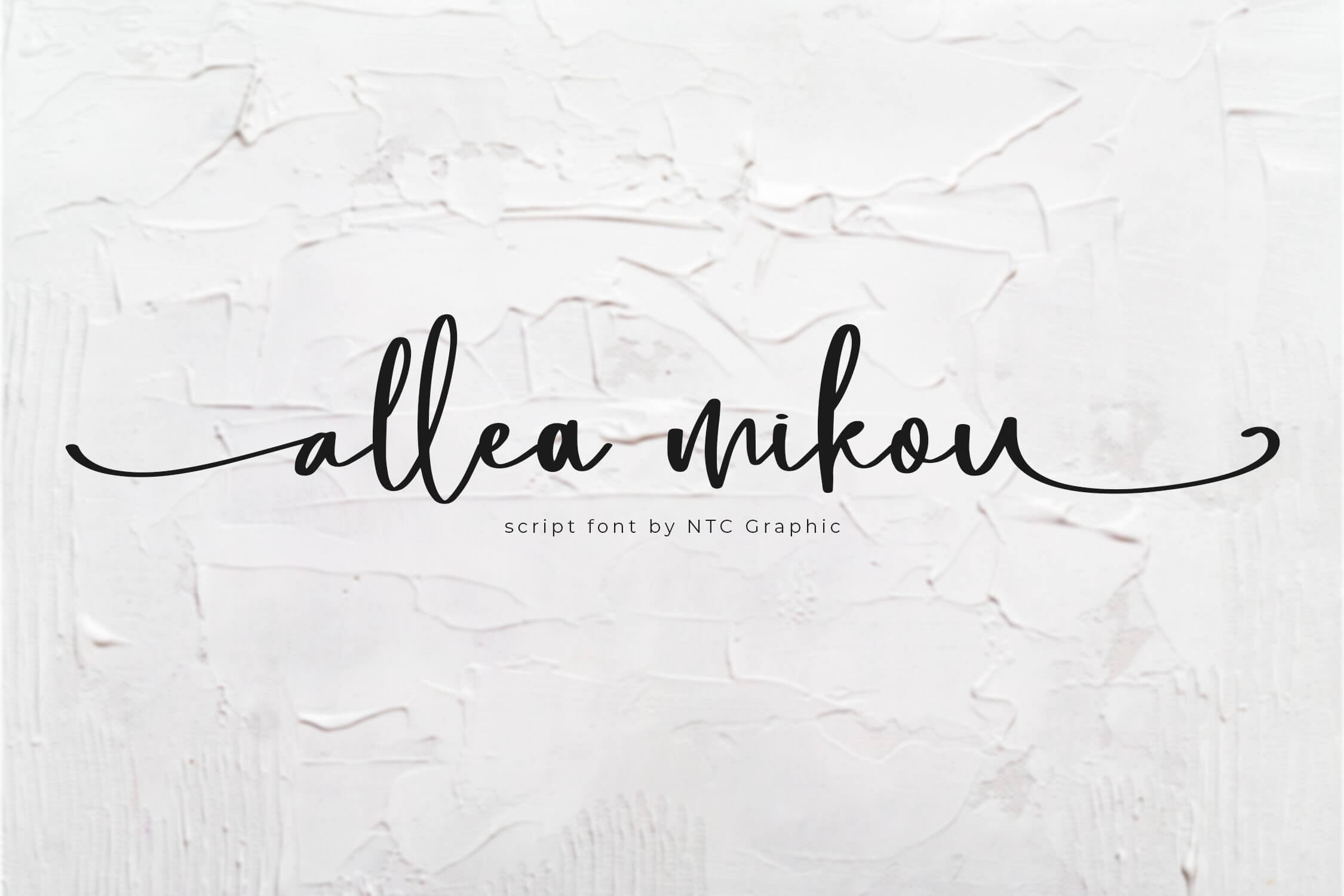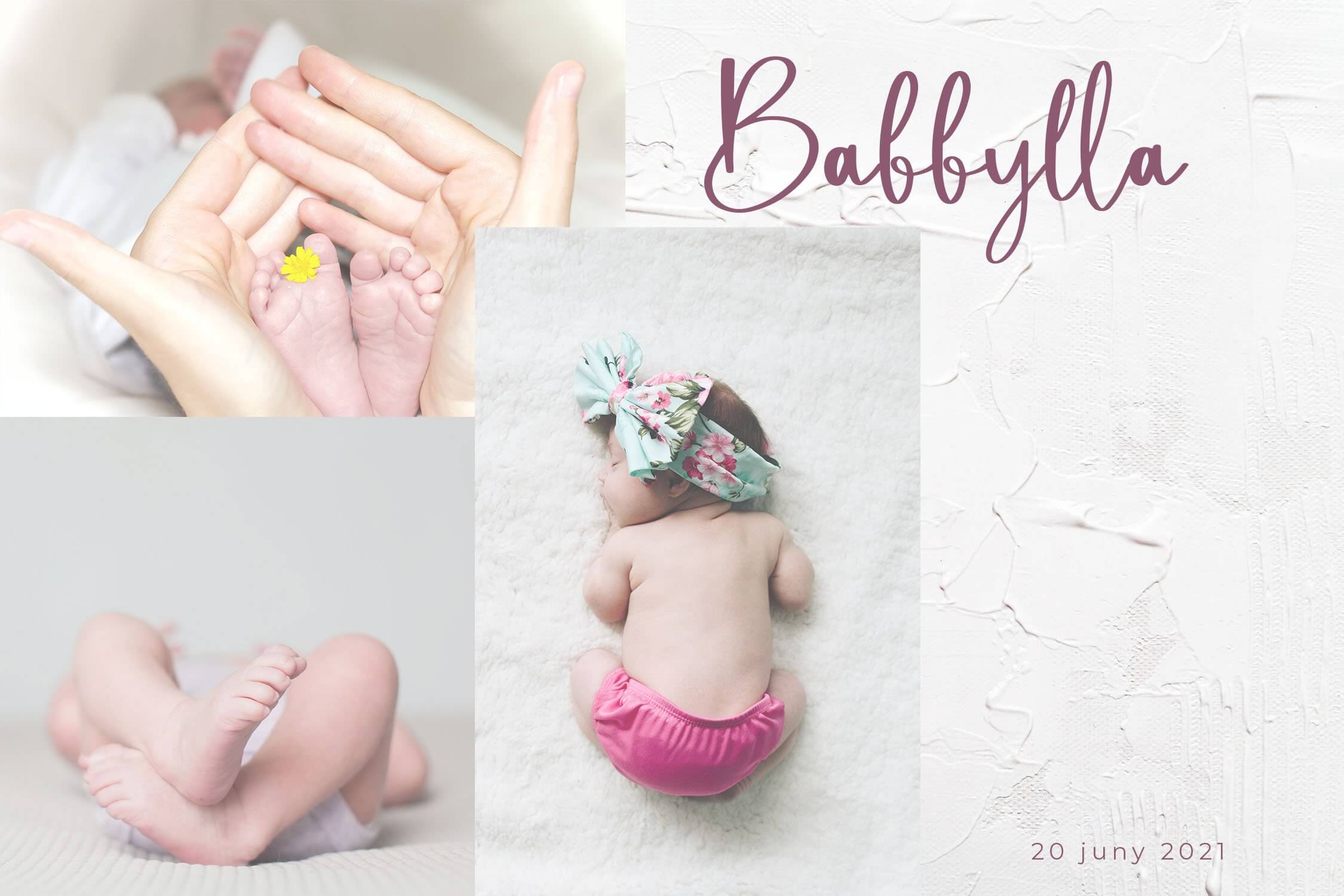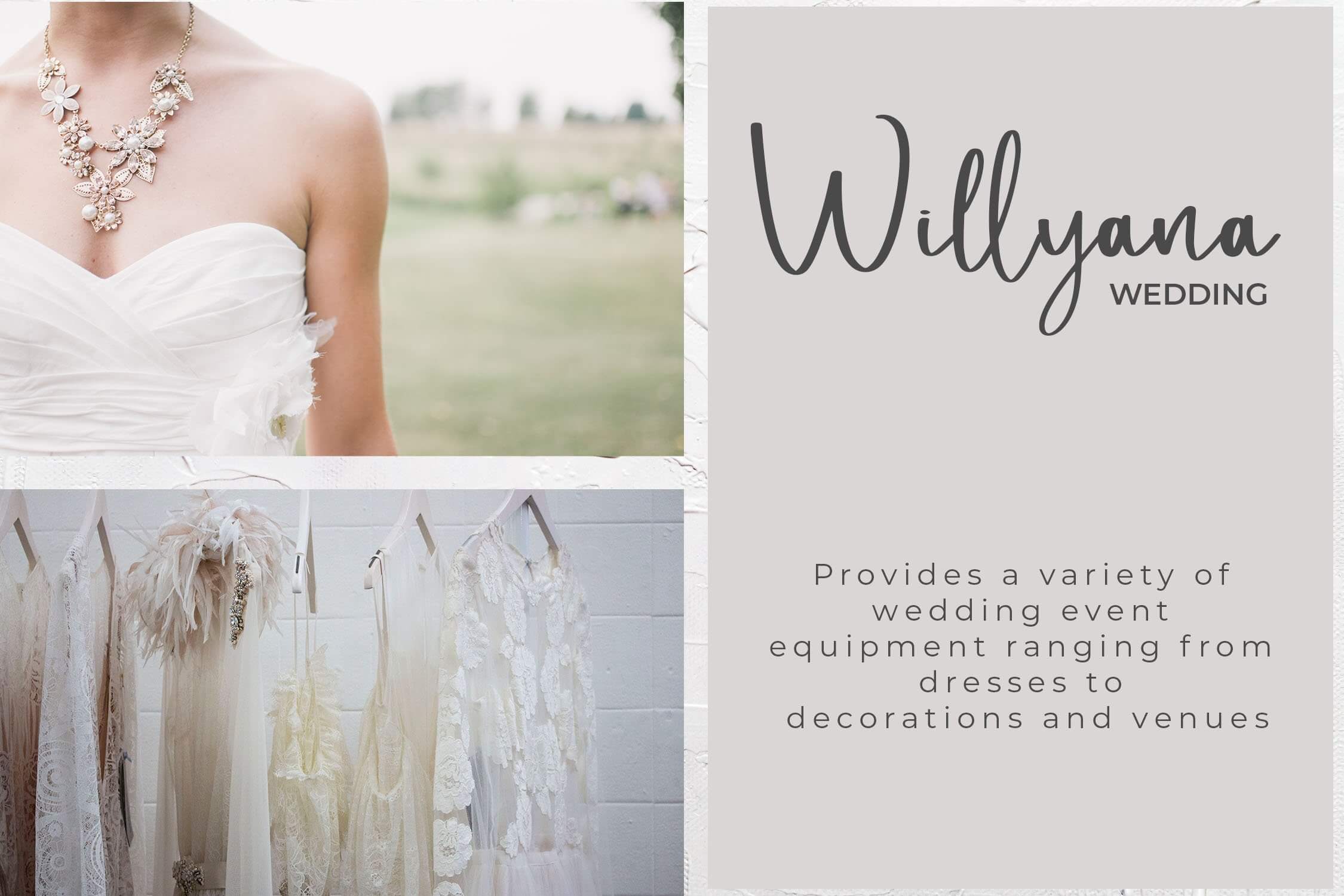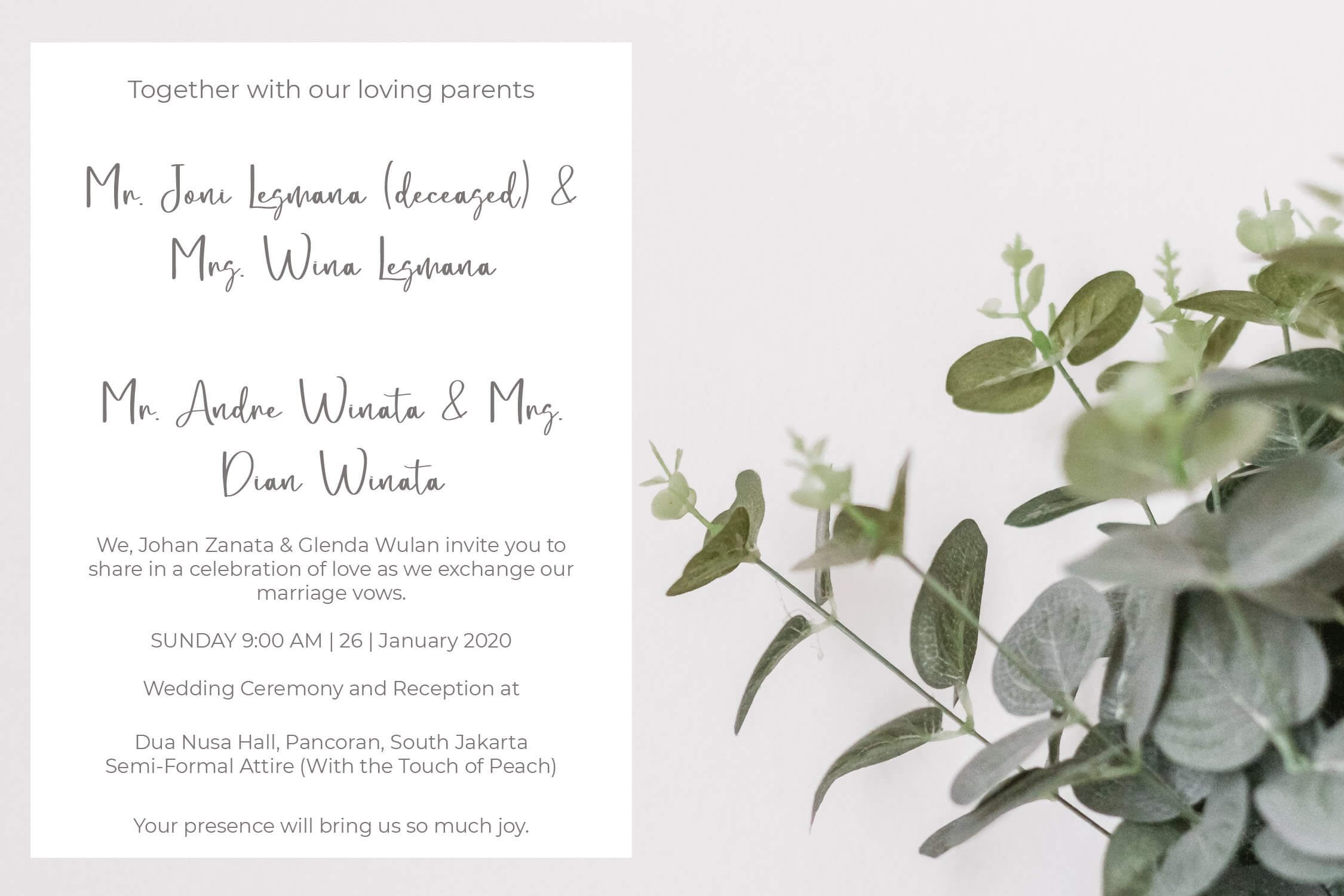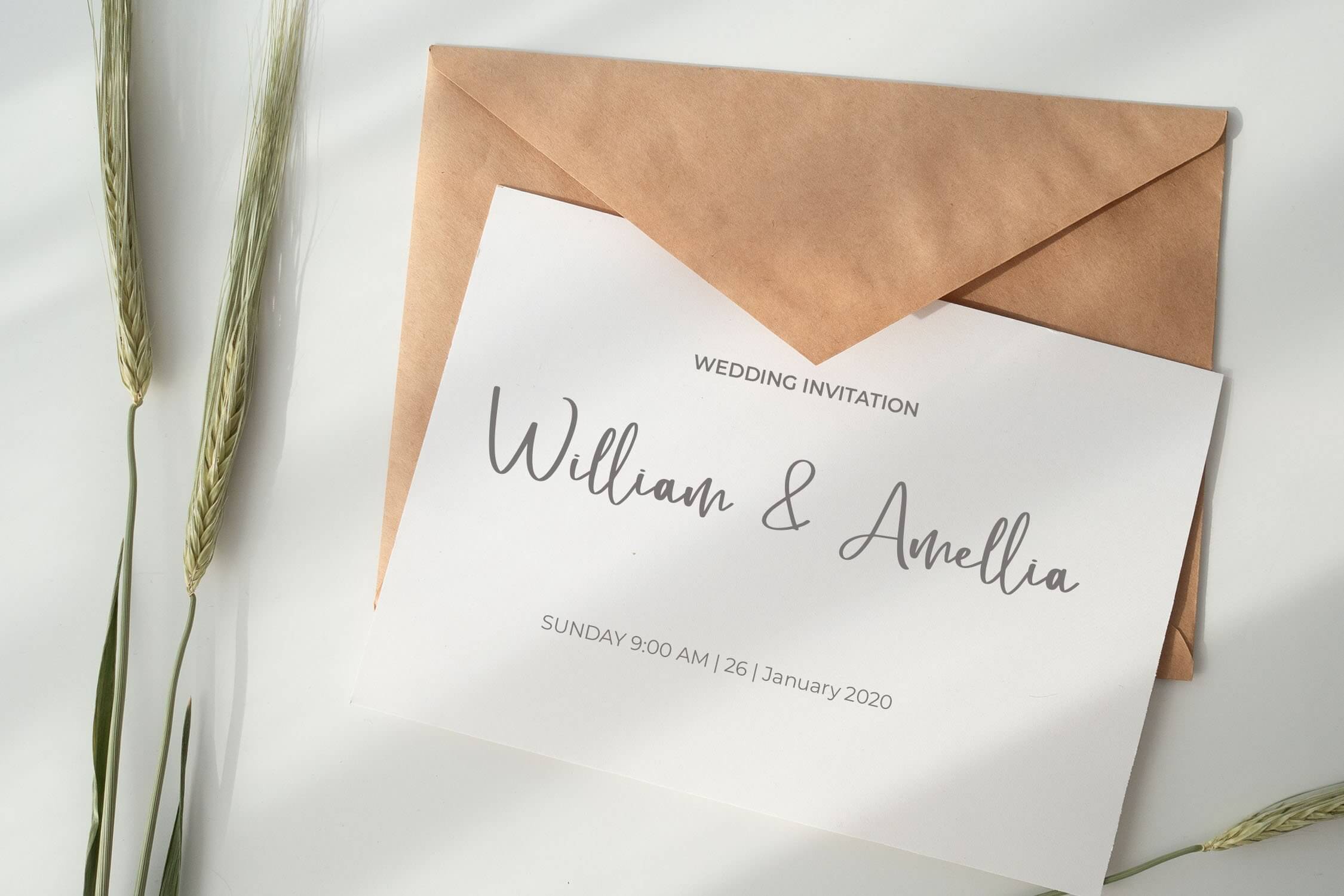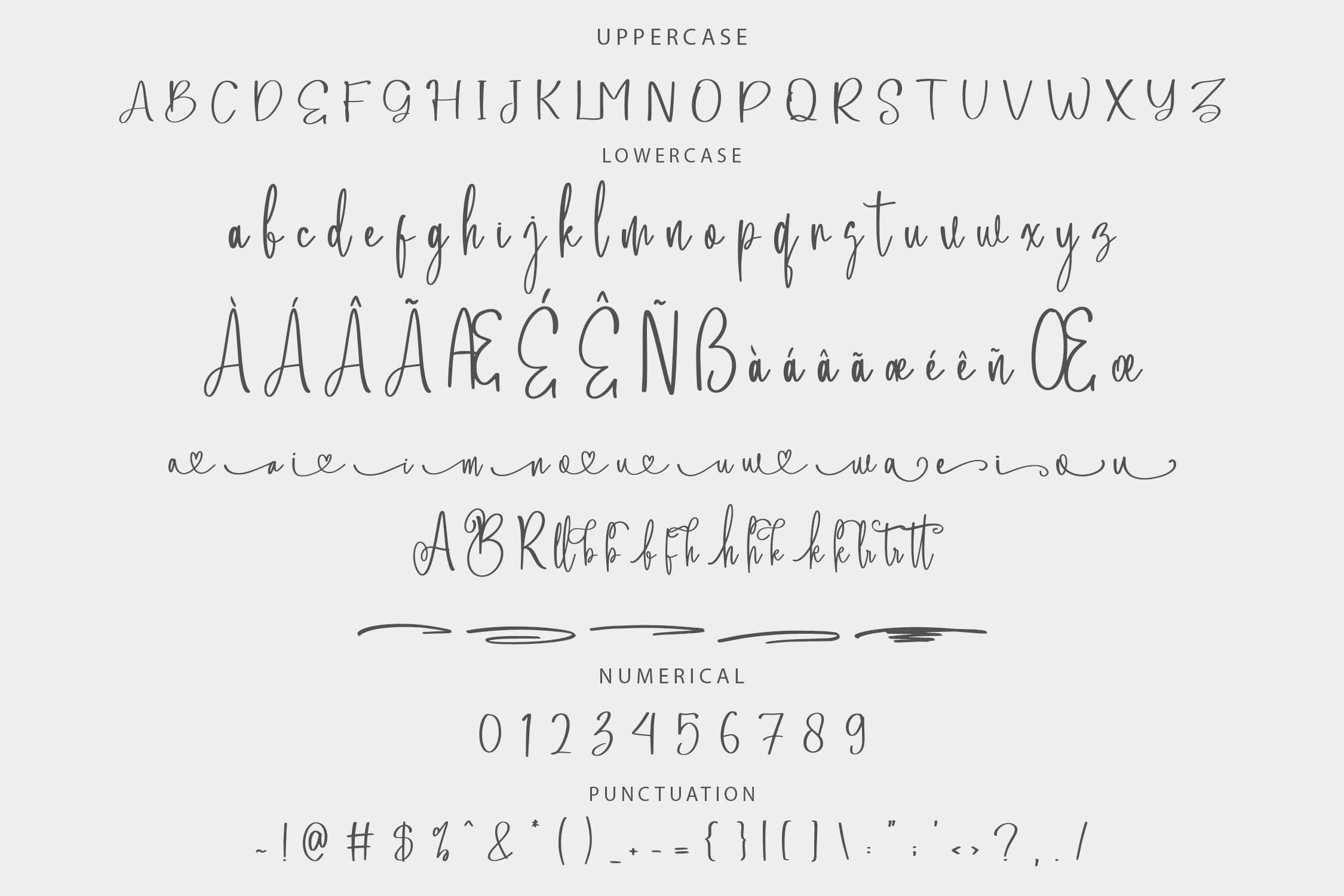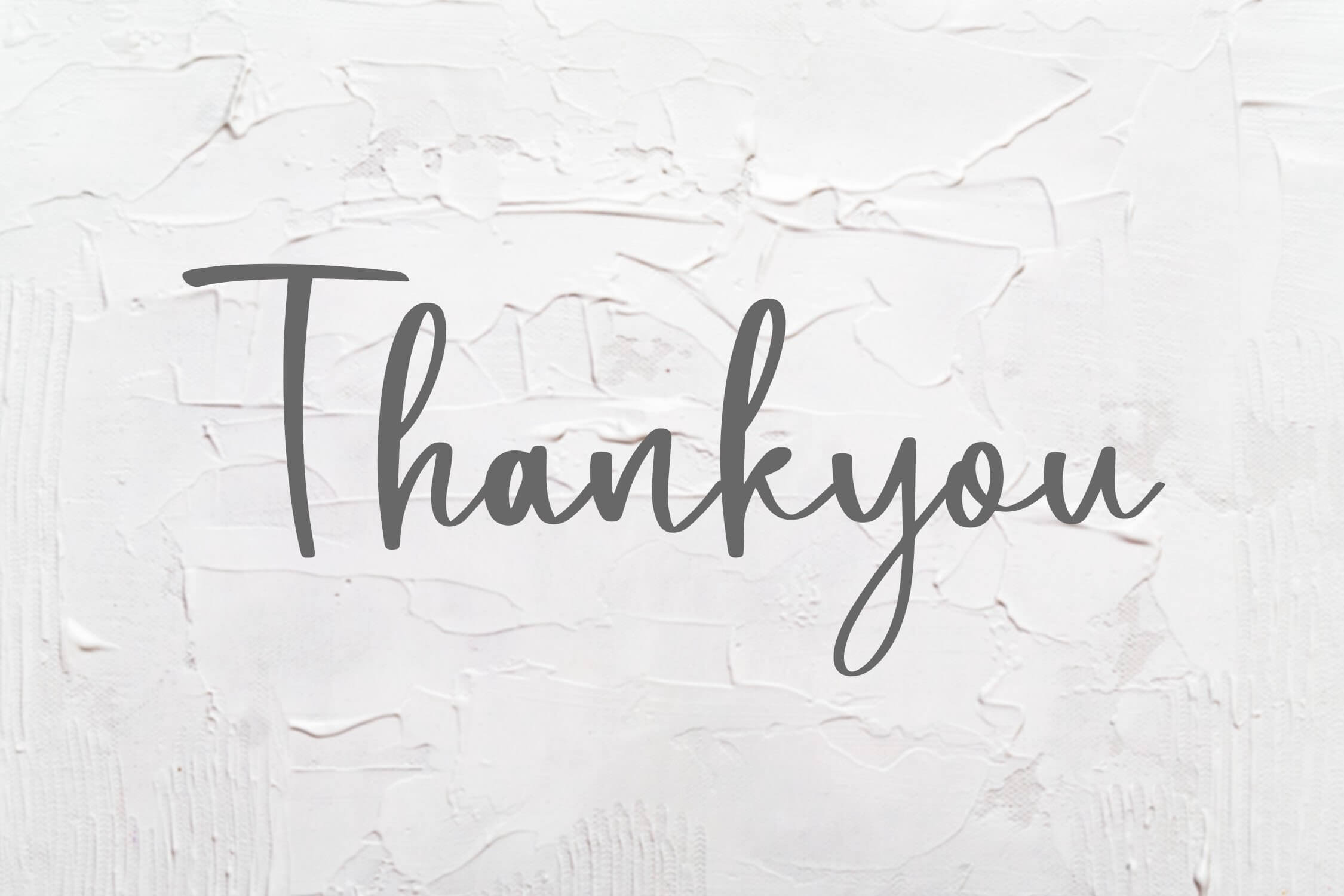
Allea Mikou is a stunning script font designed with a handbrush style, featuring uniquely crafted characters that bring elegance and personality to your designs. Whether you’re working on logos, invitations, or branding projects, Allea Mikou adds a creative, eye-catching touch to elevate your visual appeal.
- Includes ligatures, stylistic alternates, and swashes
- Full multilingual support for versatile use